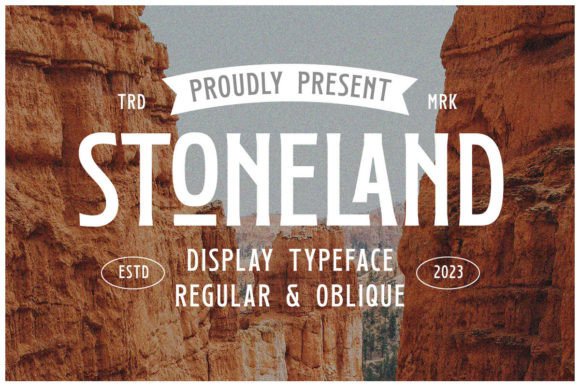
Are you looking for the best font for graphic design? Look no further than Stoneland Font, created by Letterhend. This vintage display font transports you to another era, adding a touch of nostalgia and authenticity to any project.
Stoneland's timeless design and classic style make it the perfect choice for any designer seeking a vintage aesthetic. Its unique character and attention to detail ensure that it stands out from the crowd. Whether you're working on branding, packaging, or any other project, Stoneland will elevate your work and make it truly memorable.
With its captivating design, Stoneland Font is sure to inspire emotions of nostalgia and elegance. Its attention to detail and unique character will captivate your audience and leave a lasting impression. Don't settle for ordinary fonts, choose Stoneland for an extraordinary touch.
Incorporating Stoneland into your designs will create a powerful emotional connection with your audience, as they are transported to a simpler time. The versatility of this font allows it to be used for a wide range of projects, from logos to invitations and beyond.